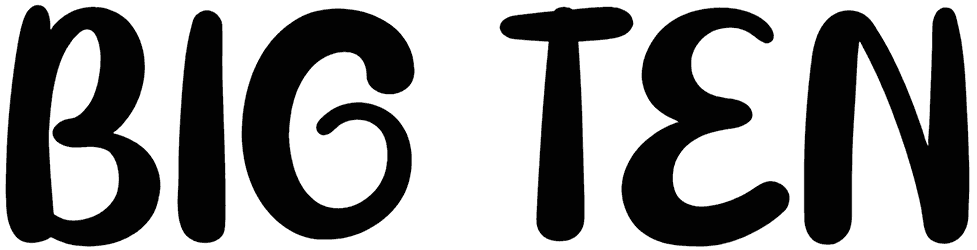
Big Ten Font
Big Ten has a tremendous flow inspired by children’s writing and can add personality to your writing. This cartoon font has come to the field to enhance your design further and add a fresh look to any format you create.…
Big Ten has a tremendous flow inspired by children’s writing and can add personality to your writing. This cartoon font has come to the field to enhance your design further and add a fresh look to any format you create.
With this fancy font, your ideas will be more potent for any project that needs to stand out. Designing book covers, toy packaging, and anywhere else that doesn’t require numbers will be a place for the Big Ten to stand out.